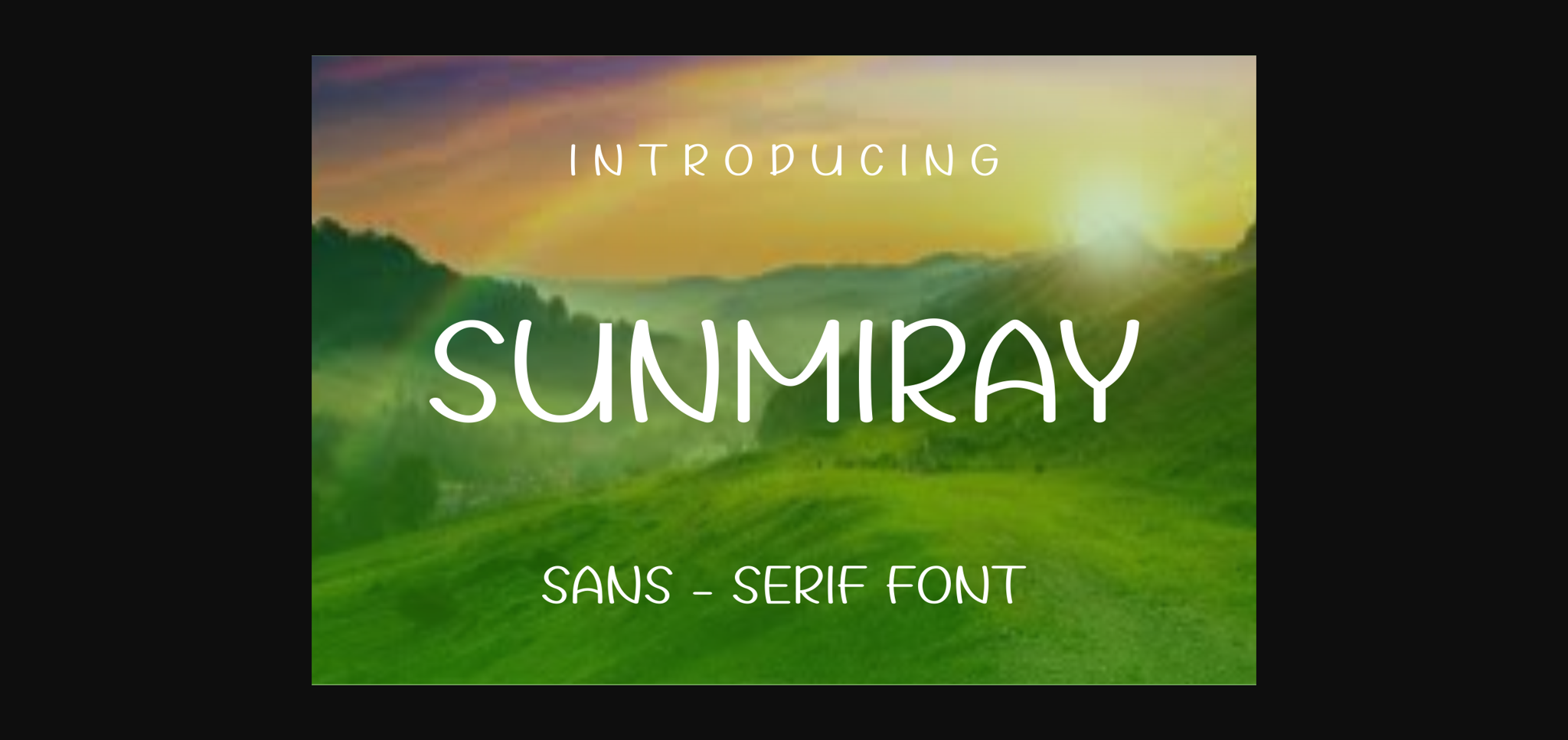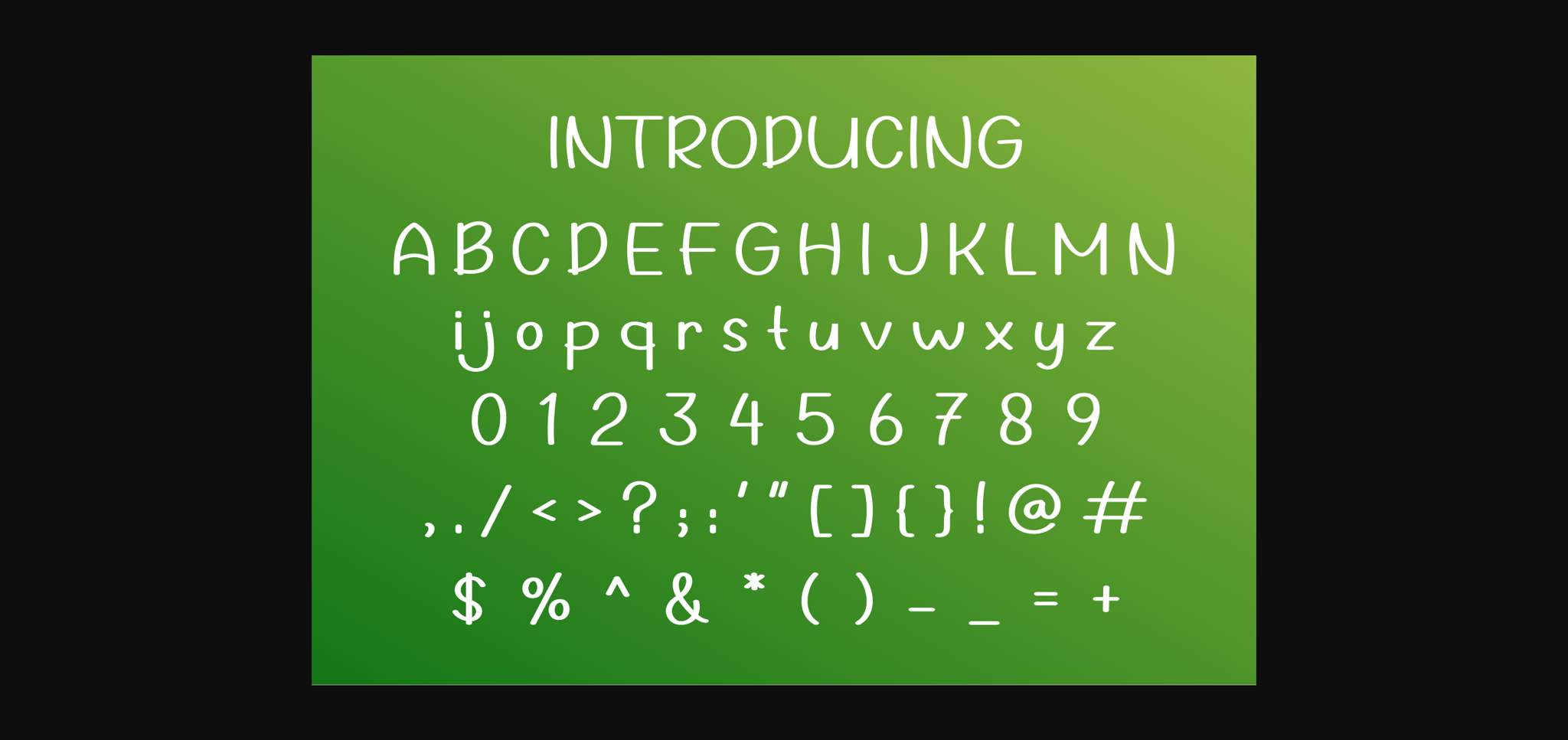
About Sunmiray Font
Sunmiray is a cool and unique sans serif font. Fall in love with its incredibly distinct and timeless style and use it to create spectacular designs!